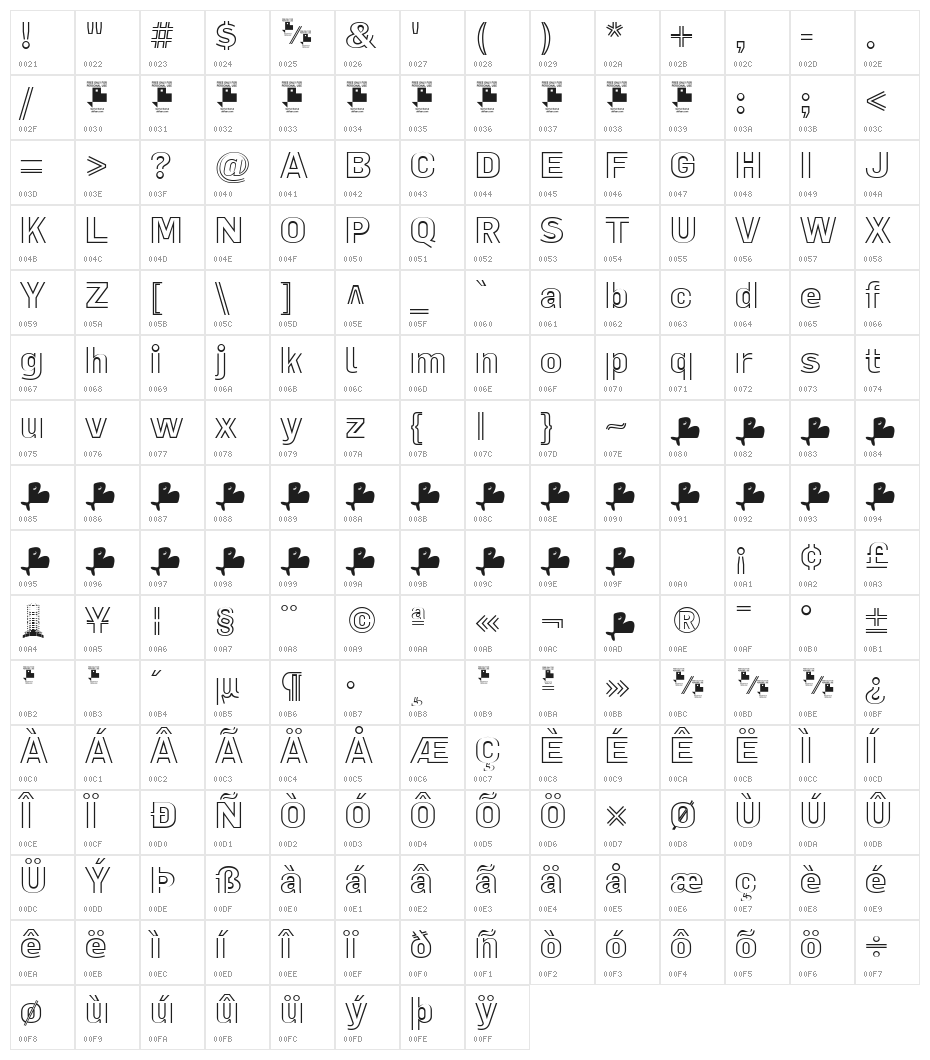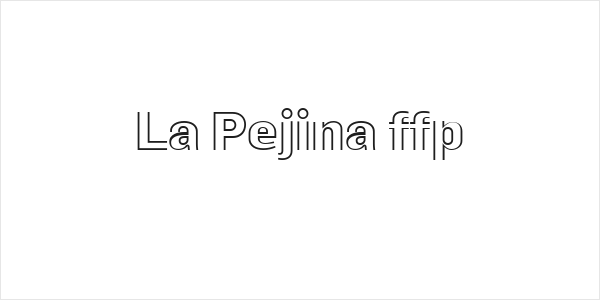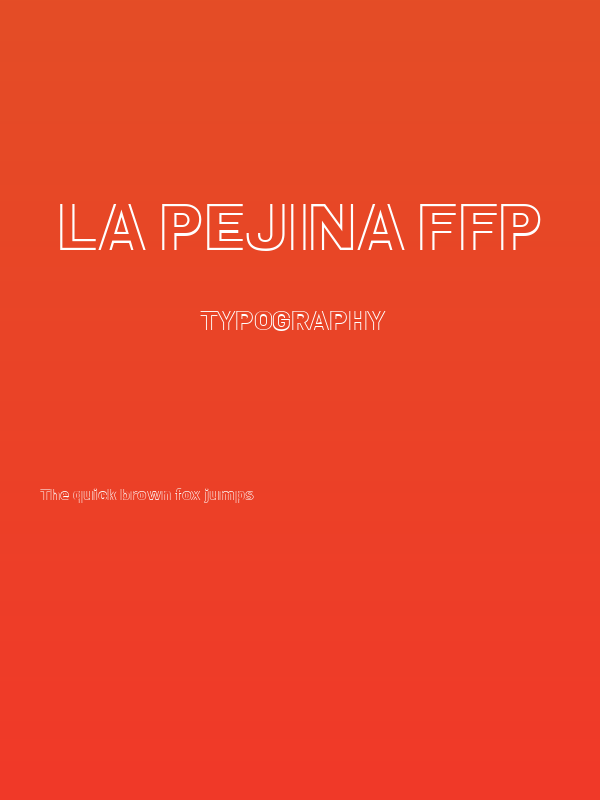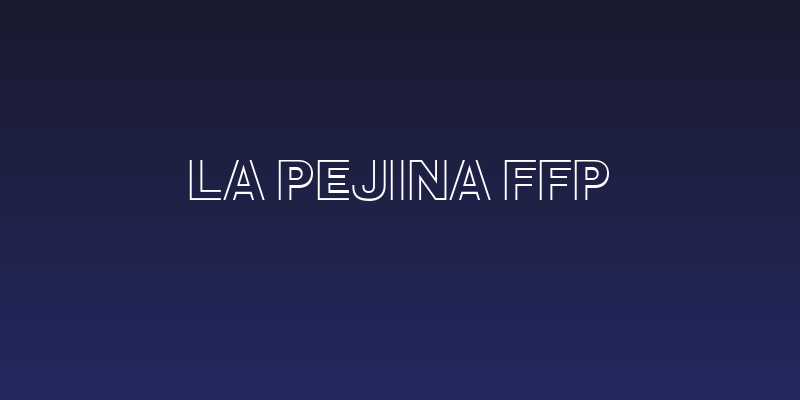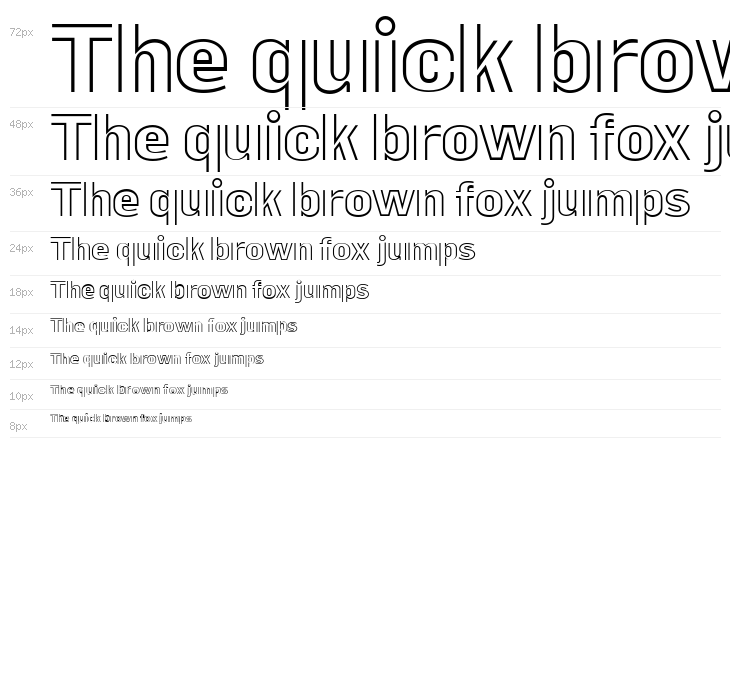
La Pejina ffp Font
La Pejina ffp Description
This font features a modern, geometric sans-serif style with clean lines and a minimalist aesthetic. The uppercase and lowercase letters maintain a consistent stroke width, giving it a uniform appearance. The characters are slightly condensed, which enhances its sleek and contemporary look. The font includes a full set of uppercase and lowercase letters, numbers, and a variety of special characters, making it versatile for different design needs. Its simplicity and clarity make it suitable for both digital and print media, ensuring readability and elegance.
Proposed ProjectsIdeal for branding, advertising, web design, and editorial layouts where a modern and clean look is desired.